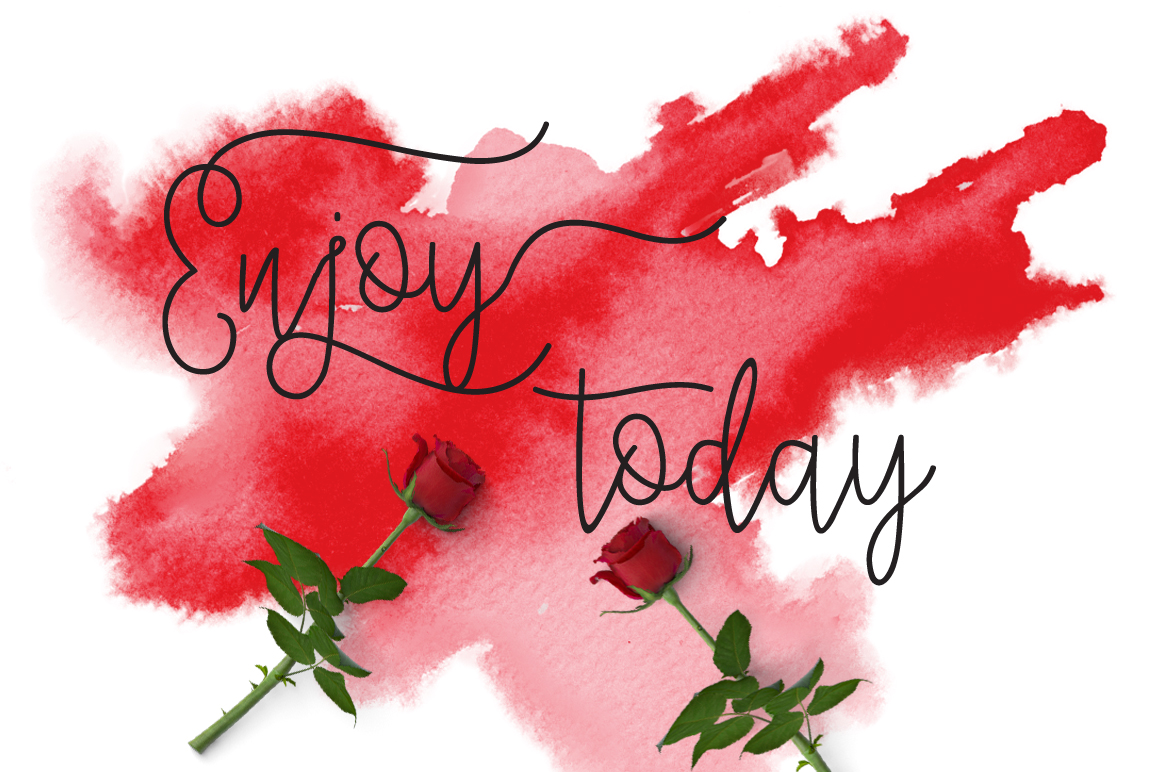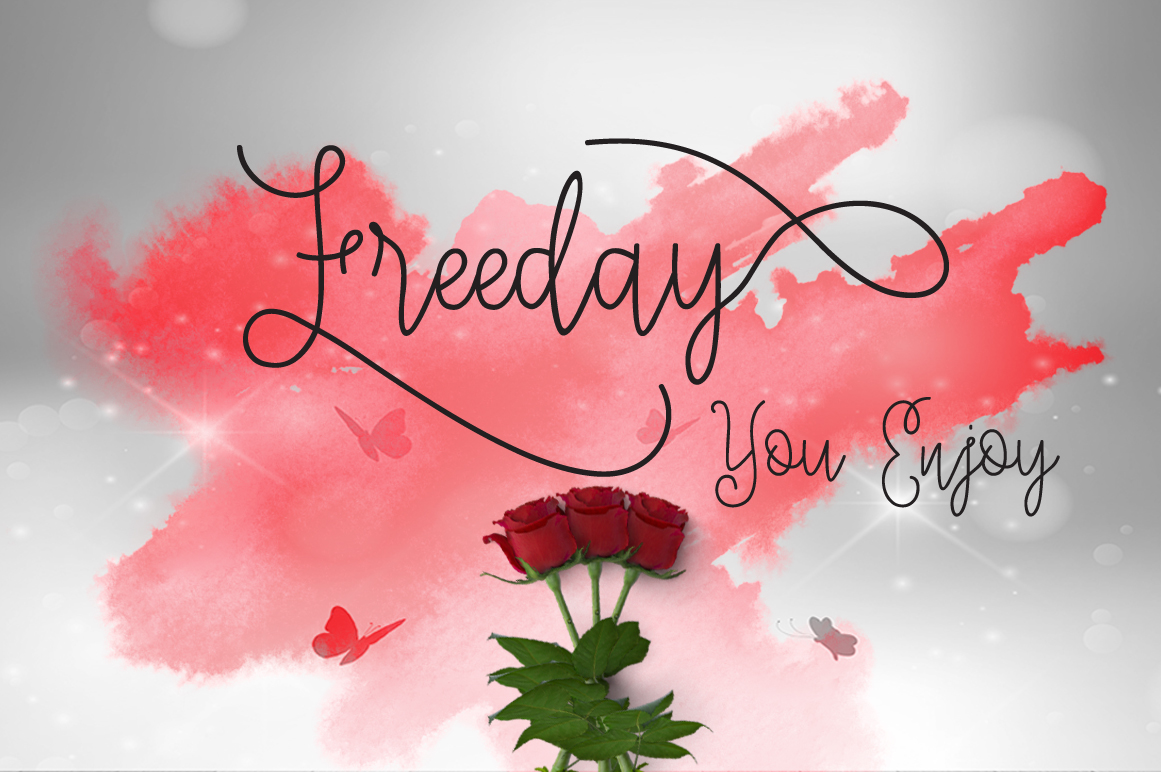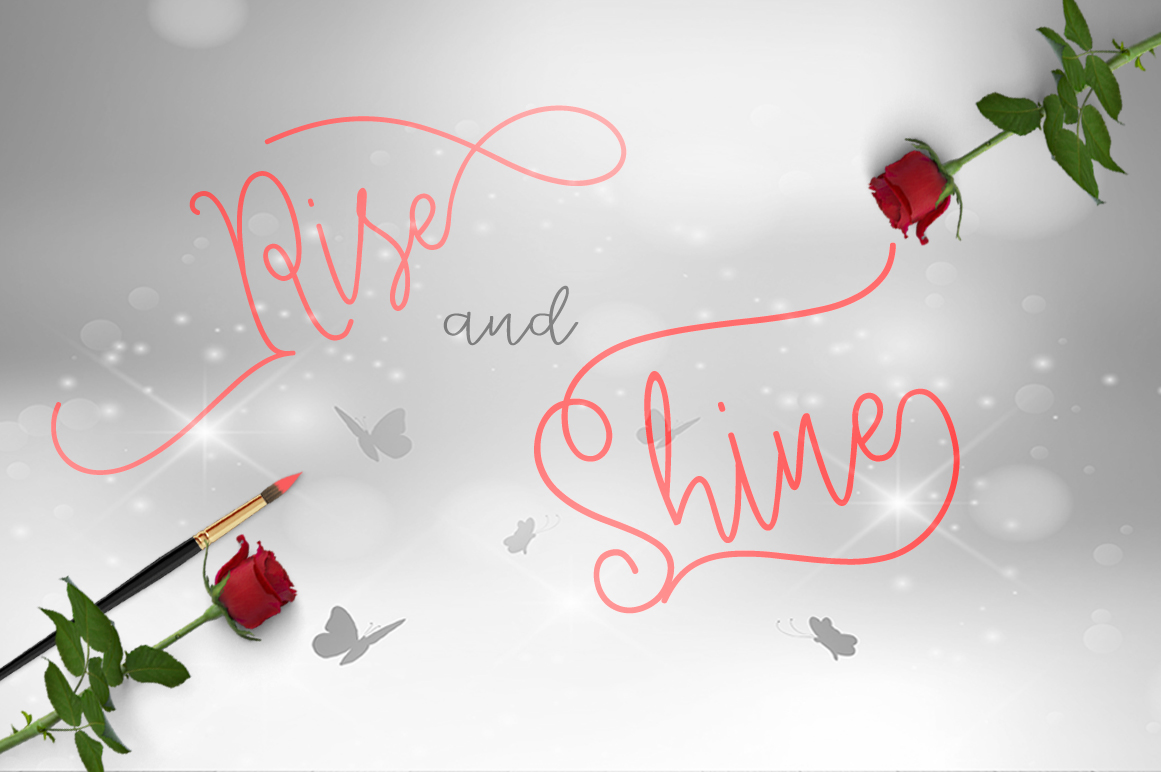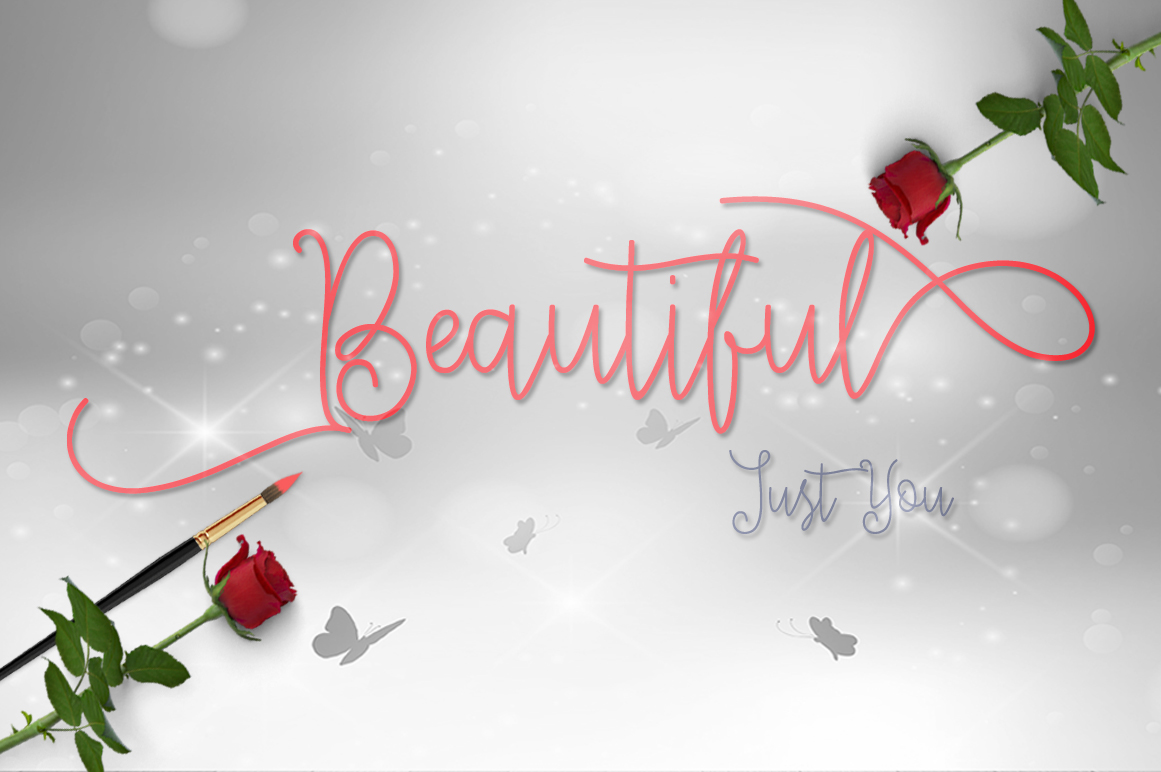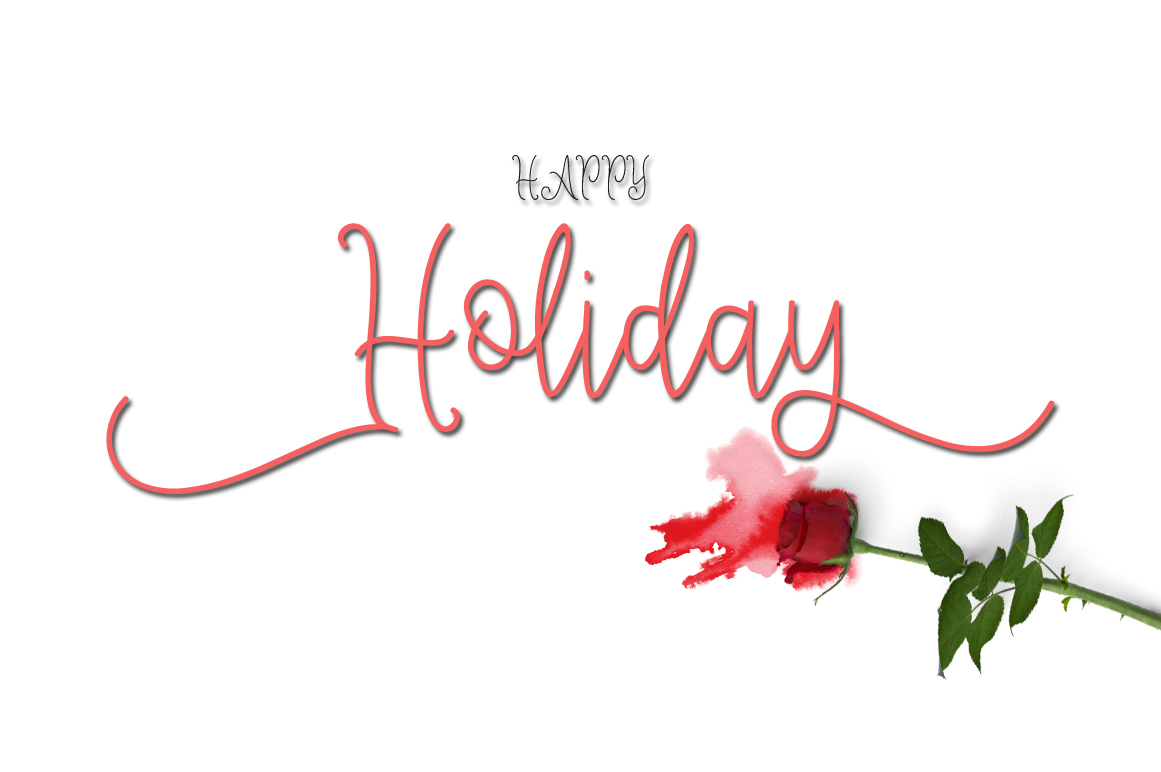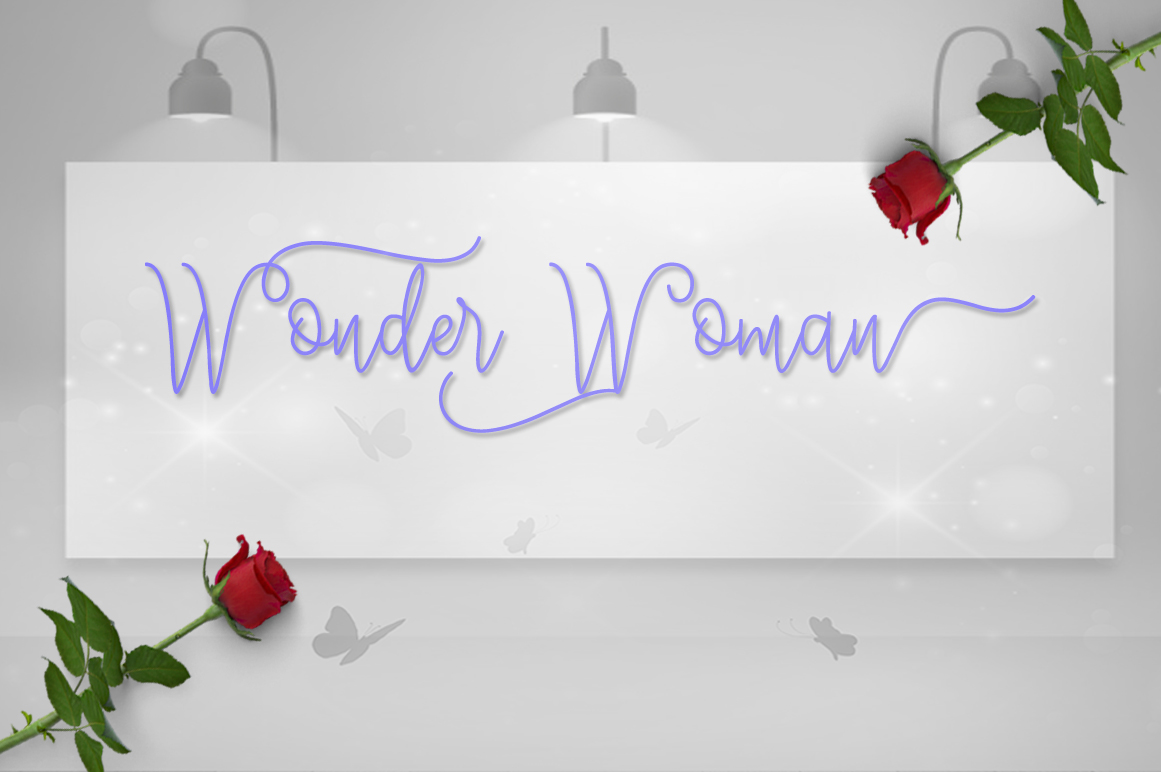
The Elusive Perfect Font: My Encounter with Arragon
I’ll never forget the frustration of working on a project, hours pouring into designing what I thought was going to be a stunning piece, only to realize that something was off. It wasn’t the layout, nor the colors – it was the font. I was using a generic sans-serif, but my design needed something more elegant, more personal. That’s when I stumbled upon Arragon, a modern calligraphy font created by Check Creative. This beautiful font features long swashes that add a touch of sophistication to any design.
Arragon Font: The First Impression
As soon as I started typing with Arragon, I knew I had found something special. The fluid strokes, the elegant swashes, and the overall feel of the font screamed luxury and creativity. It’s perfect for designers, crafters, and creative hobbyists looking to add a personal touch to their work.
What I Love About Arragon ✨
- 💫 Elegant swashes that add a touch of sophistication
- 🎨 Versatile and works well for various design projects, from branding to wedding invitations
- 📚 Extensive OpenType features, including stylistic alternates and glyphs
- 🤔 Some swashes might not work well with certain sentence structures or words
- ⚠️ Limited use for body text due to its calligraphic nature
The Story Behind Arragon: Designer Inspiration
Arragon was born from the creative mind of Check Creative, a designer with a passion for calligraphy and modern typography. The inspiration behind Arragon was to create a font that combines the elegance of traditional calligraphy with the simplicity and versatility needed for modern design projects. The result is a font that is both luxurious and accessible.
| What is Arragon font best used for? | Arragon is best used for designs that require elegance and a personal touch, such as branding, wedding invitations, and creative projects. |
| Can I use Arragon for body text? | While Arragon is highly legible, its calligraphic nature makes it more suitable for headings and titles rather than body text. |
| Does Arragon support OpenType features? | Yes, Arragon supports extensive OpenType features, including swashes, stylistic alternates, and glyphs, which can be accessed in compatible software like Adobe Photoshop and Illustrator. |
| Is Arragon suitable for web use? | Arragon can be used for web design, but its effectiveness depends on the context and the specific design requirements. For body text on the web, a more straightforward font might be better, but for headings, Arragon can shine. |
| Font Name | Arragon Font |
| Author | Cek Creative |